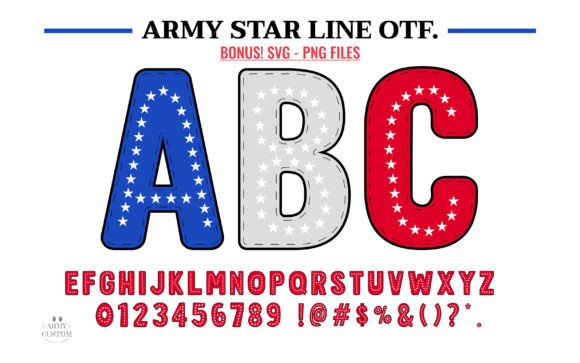
Unleashing the Power of Patriotism: A Deep Dive into the Army Star Line Font
I’ll never forget the design project that led me to discover the Army Star Line Font. I was working on a patriotic-themed craft project for a client, and I was struggling to find the perfect font that captured the essence of American pride and heritage. That’s when I stumbled upon this amazing typeface, and it instantly became the star of the show! ✨
In this article, I’ll share my experience with the Army Star Line Font, its features, and how to make the most of it in various design platforms. Whether you’re a designer, crafter, or creative hobbyist, this font is sure to add a touch of nostalgia and patriotism to your work.
- ✨ Unique and authentic design: The Army Star Line Font is meticulously crafted to reflect the stars and stripes, making it a standout in any design project.
- ✅ Highly versatile: This font is perfect for various design applications, from crafting and scrapbooking to graphic design and digital art.
- 🎨 OpenType features and glyphs: The font comes with a range of OpenType features, including stylistic alternates and glyphs, which can be used to add an extra layer of creativity to your designs.
While the Army Star Line Font is an excellent choice for many design projects, there are a few things to keep in mind:
The Army Star Line Font was designed with the intention of capturing the essence of American pride and heritage. The designer drew inspiration from the stars and stripes, creating a typeface that embodies the spirit of the nation. With its unique and authentic design, this font is sure to add a touch of patriotism to any design project.